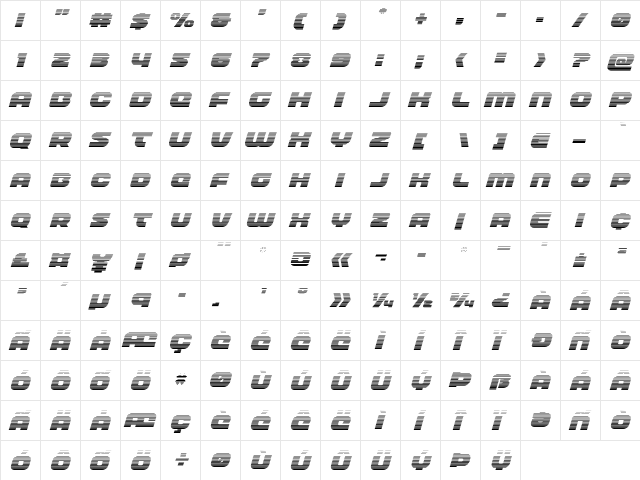
Front Runner Gradient Italic Italic
Design Context for Front Runner Gradient Italic Typeface
Front Runner Gradient Italic is a composed and adaptable typeface that performs quietly and consistently across a wide range of design contexts. Its italic angle brings a sense of urgency and motion to the letterforms.
Pro Tip: Try Front Runner Gradient Italic for annotation and caption copy alongside an upright companion — the contrast in angle creates a dynamic but ordered typographic system.